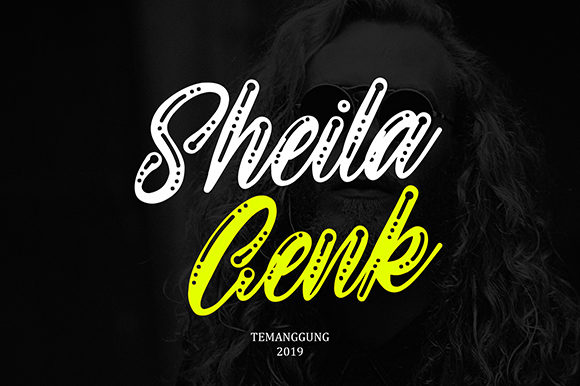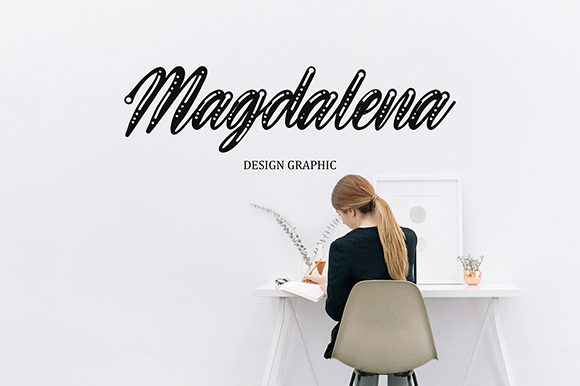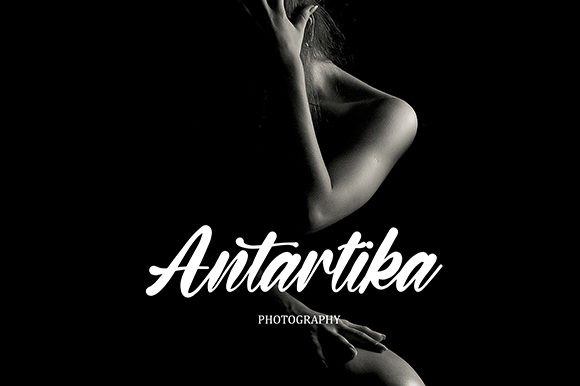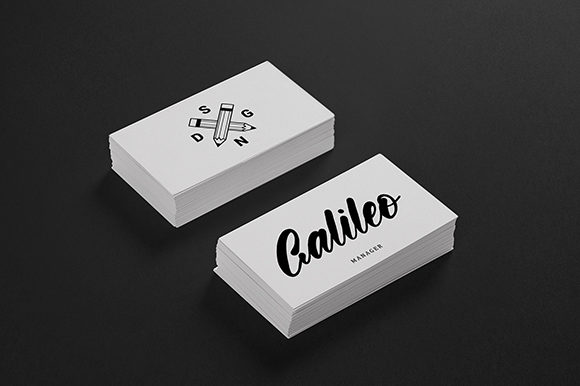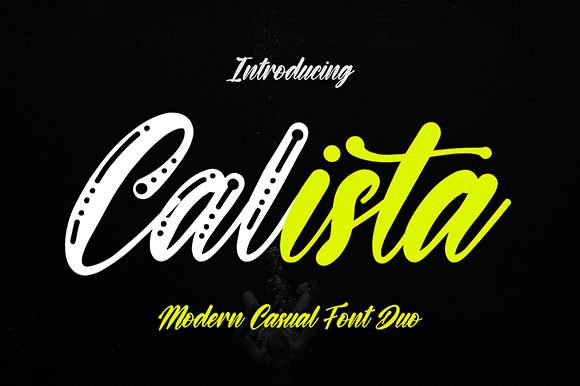
Discover the Allure of Calista Font
Have you ever stared at a blank canvas, waiting for the perfect idea to strike? For designers, those moments are a thrill – the spark that ignites a new project and sets the creative juices flowing. And sometimes, all it takes is the right font to bring that idea to life.
Enter Calista Font, a stunning handwritten font that’s as versatile as it is charming. Available in two distinct versions – regular and rough – this font is perfect for adding a touch of whimsy to your designs. Whether you’re crafting a wedding invitation, a children’s book, or a brand identity, Calista Font is sure to inspire.
For designers, Calista Font is a valuable asset – a tool that can help bring personality and emotion to your work. Its unique charm and character make it an excellent choice for projects where you want to stand out from the crowd.
Calista Font Key Features
- Unique Characteristics: The font features a unique blend of modern and vintage elements, with intricate details and ornate flourishes.
- Font Style: Calista Font is available in 5 different styles, including Regular, Italic, Bold, Bold Italic, and Outline.
Designer Review: Calista Font
I recently had the chance to work with the Calista Font, and I must say it’s a unique and intriguing typeface. ✨ Here are some things that work well:
- Its elegant, cursive script makes it perfect for titles, headings, and decorative text.
- The font’s sophistication and refinement give it a high-end feel, suitable for luxury brands and premium products.
- It’s highly customizable, allowing you to adjust the weight, spacing, and other parameters to fit your design needs.
However, I did encounter some limitations: ⚠️
- The font can be a bit too ornate for some designs, potentially overwhelming the content and making it harder to read.
- It may not be the best choice for body text, as the letterforms can be quite complex and take up more space than a standard sans-serif font.
- The font’s high contrast between thick and thin strokes can make it difficult to use at very small sizes or in low-resolution environments.
Overall, I think Calista Font is a great choice for designers who want to add a touch of sophistication and elegance to their projects. With careful use and consideration of its limitations, it can be a powerful tool in your design arsenal.
Tips for Getting the Most Out of Calista Font
Here are some tips for getting the most out of Calista Font:
- Use Calista Font for titles and headings to add a touch of elegance and sophistication.
- Pair Calista Font with other fonts to create a unique and eye-catching design.
Common Use Cases for Calista Font
Here are some common use cases for Calista Font:
- Business cards
Alternatives to Calista Font
Montserrat is a sans-serif font designed by Julieta Ulanovsky. It’s a modern, urban font perfect for digital interfaces, titles, and body text. Use it when you need a clean, minimalist look. Montserrat is more geometric and condensed compared to Calista Font, making it ideal for smaller screen sizes.
Lato is a sans-serif font designed by Łukasz Dziedzic. It’s a versatile font suitable for a wide range of applications, from titles to body text. Use it when you need a clean, elegant look. Lato is more rounded and friendly compared to Calista Font, making it ideal for branding and marketing materials.
Open Sans is a sans-serif font designed by Steve Matteson. It’s a modern, neutral font perfect for digital interfaces, titles, and body text. Use it when you need a clean, easy-to-read look. Open Sans is more rounded and spacious compared to Calista Font, making it ideal for long blocks of text.
Merriweather is a serif font designed by Eben Sorkin. It’s a classic, elegant font perfect for titles, headings, and body text. Use it when you need a sophisticated, traditional look. Merriweather is more ornate and formal compared to Calista Font, making it ideal for publishing, academic, and corporate materials.